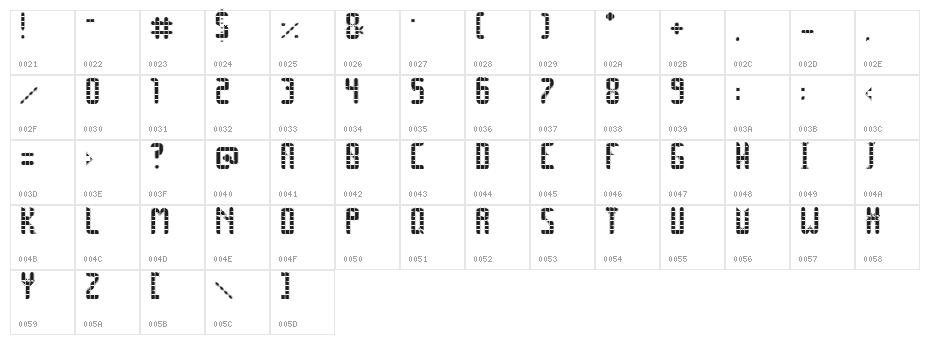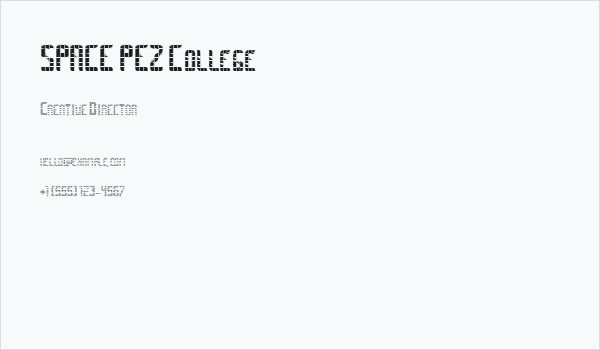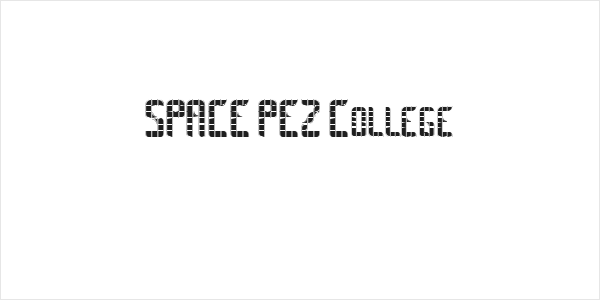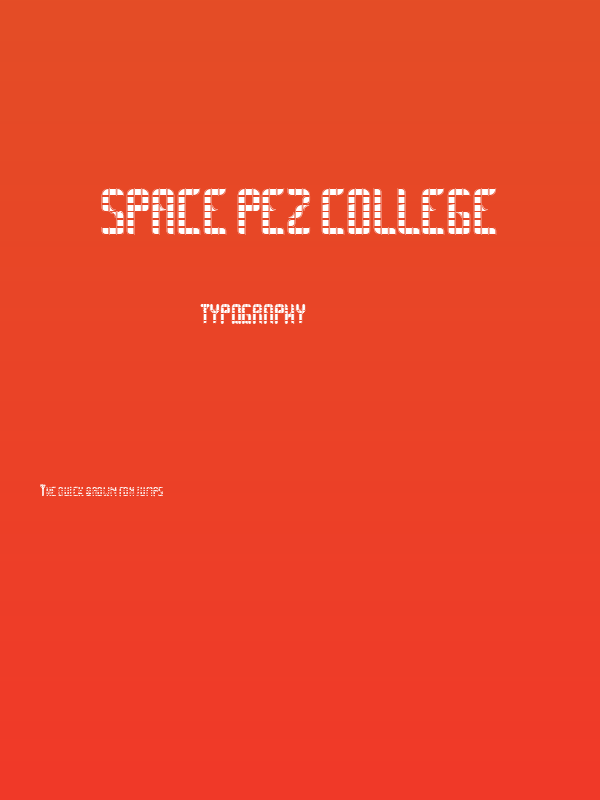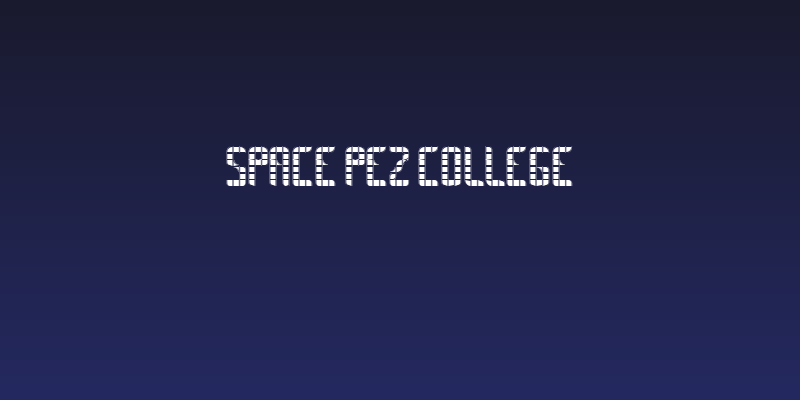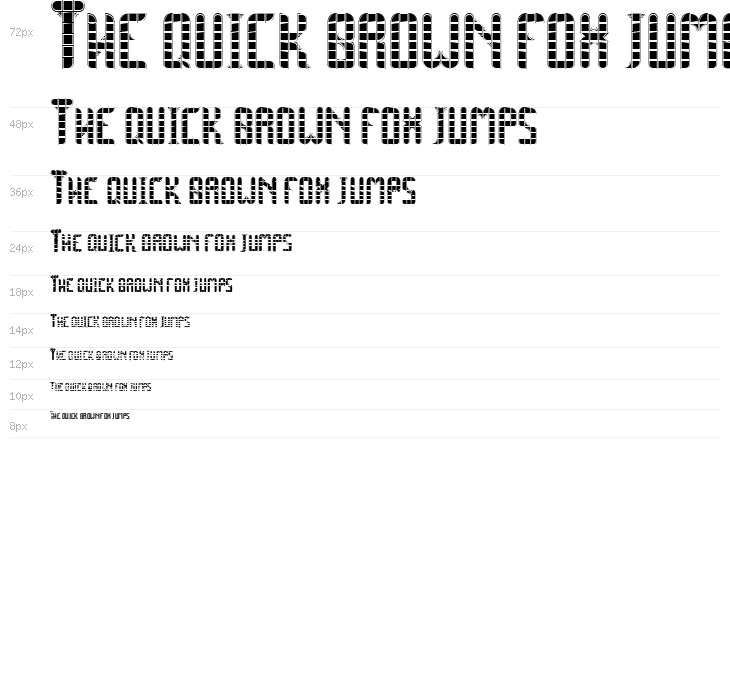
SPACE PEZ College Font
SPACE PEZ College Description
This font features a unique, futuristic design with a grid-like pattern filling each character. The letters are constructed with rounded edges and a consistent geometric style, giving them a digital, pixelated appearance. The uppercase and lowercase letters maintain a uniform height, enhancing the font's cohesive look. Numbers and special characters follow the same design principles, ensuring a seamless integration across different text elements. The overall aesthetic is bold and eye-catching, making it ideal for projects that require a modern and technological feel.